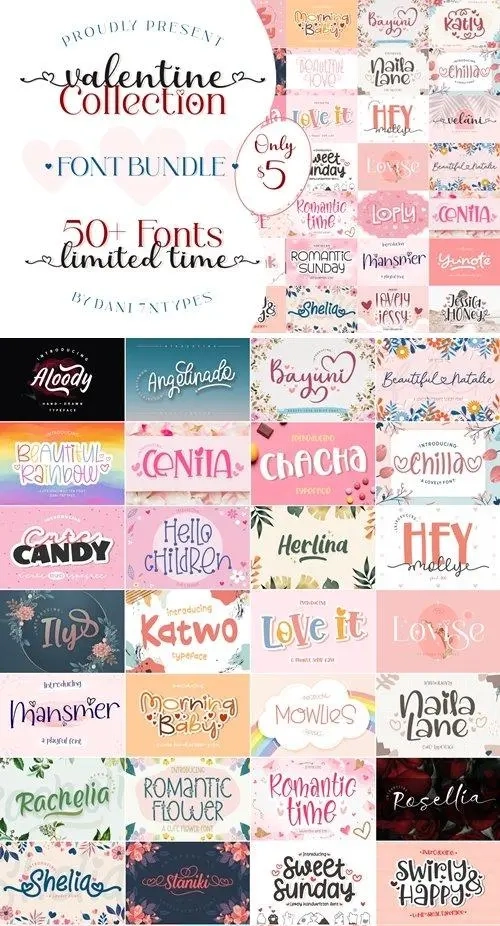
Valentine Collection Font Bundle
Elevate your design projects with the Valentine Collection Font Bundle, featuring a curated selection of unique and stylish fonts perfect for any romantic occasion. This bundle includes a variety of font styles and weights, ensuring you have the right typeface for every creative need.
• Multiple font styles including script, serif, and sans-serif
• Various weights for versatility in design
• Easy-to-read characters for clear communication
Ideal for branding, logos, wedding invitations, greeting cards, and other print or digital projects, the Valentine Collection Font Bundle adds a touch of elegance and charm to your creations.